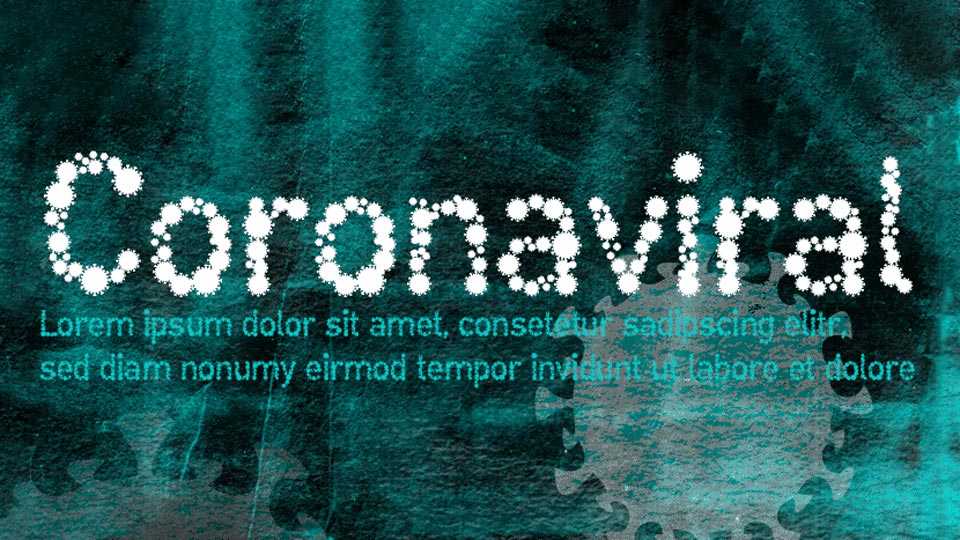
Download Coronaviral font, a decorative display font reflecting current health problems in the world. Coronaviral font can be used for promotional messages, posters, bannes and other graphic designs.